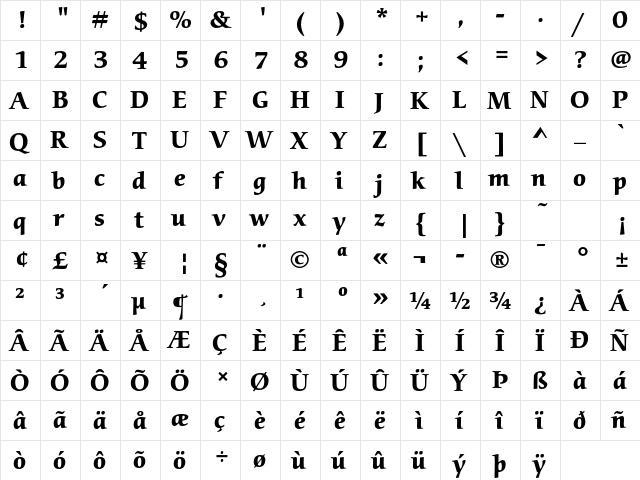
ITC Cerigo Std Bold
| Designer | Jean-Renaud Cuaz |
Design Context for ITC Cerigo Std Typeface
ITC Cerigo Std takes a measured approach to typography — its balanced proportions and neutral character make it a reliable workhorse for both digital and print work. The heavy weight commands attention and anchors typographic hierarchies.